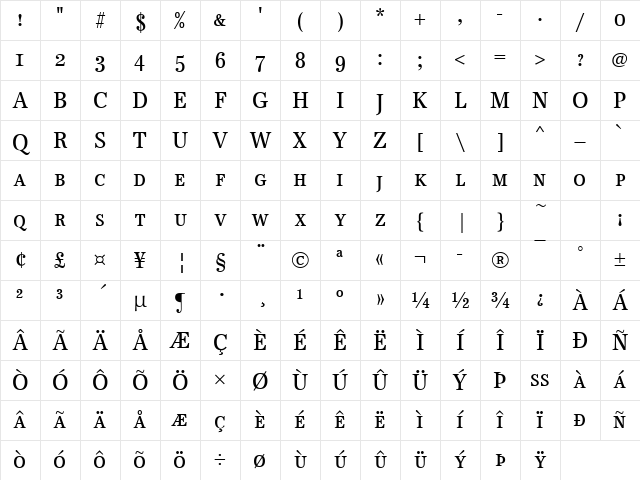
URWAntiquaSCTRegCon Regular
Design Context for URWAntiquaSCTRegCon
URWAntiquaSCTRegCon is a composed and adaptable typeface that performs quietly and consistently across a wide range of design contexts.
Pro Tip: Use URWAntiquaSCTRegCon in both headline and body roles to test its range before committing to a single application.